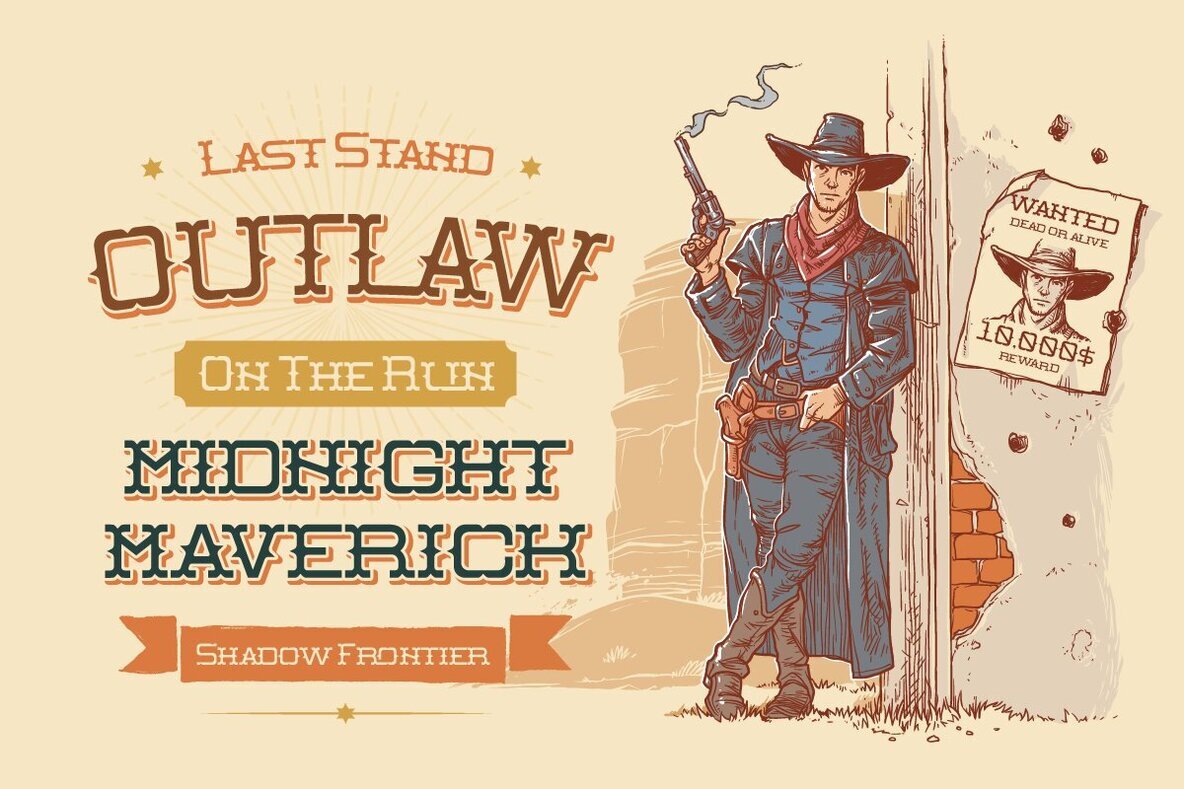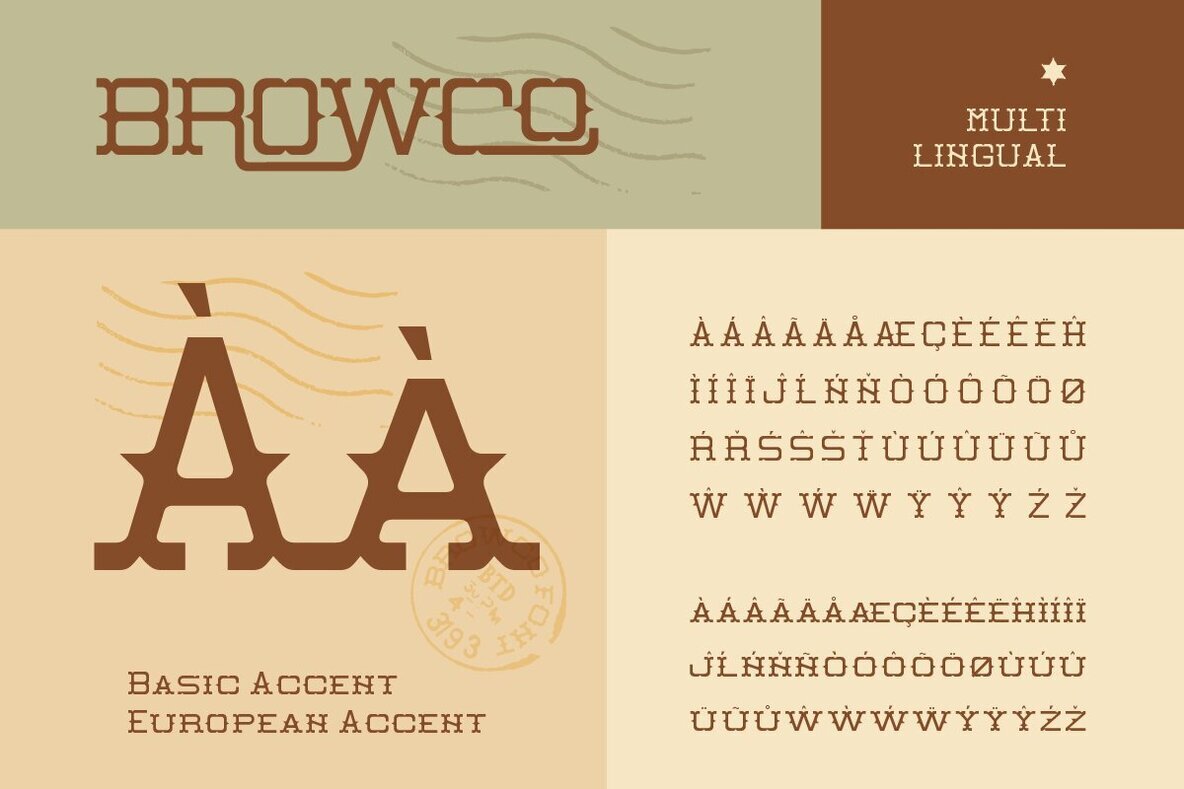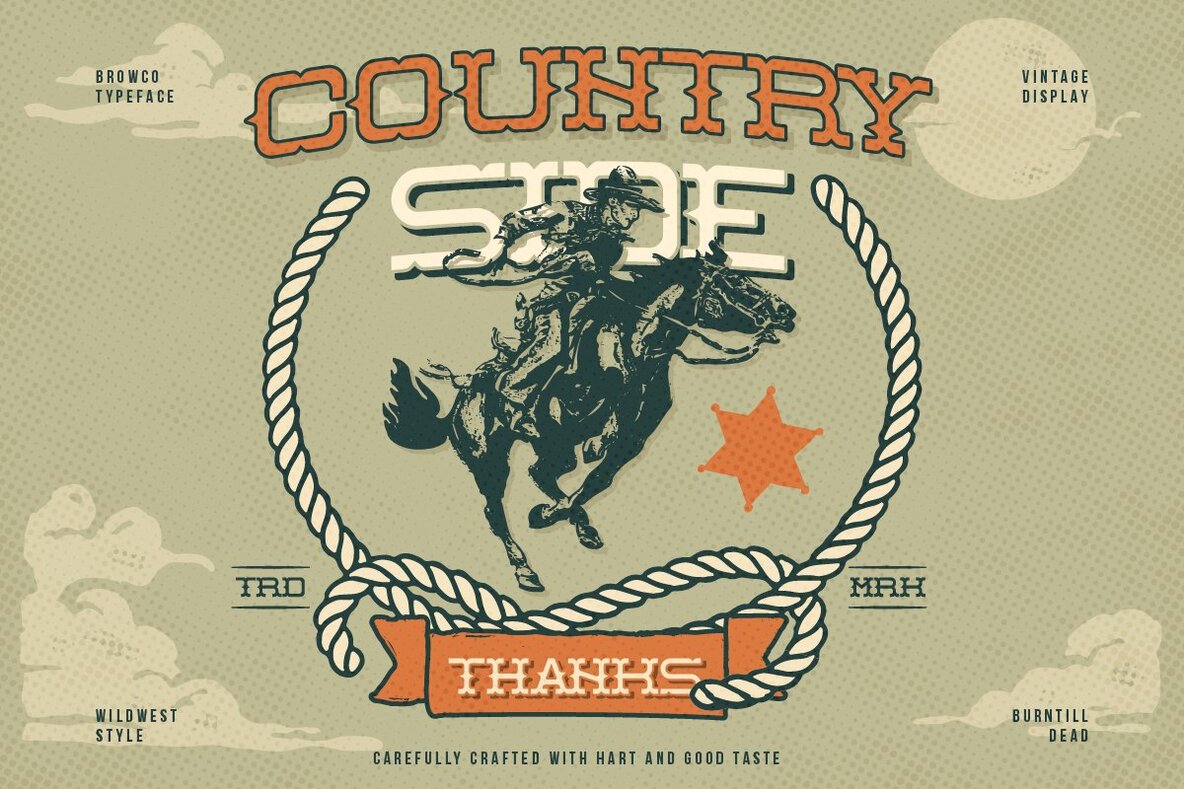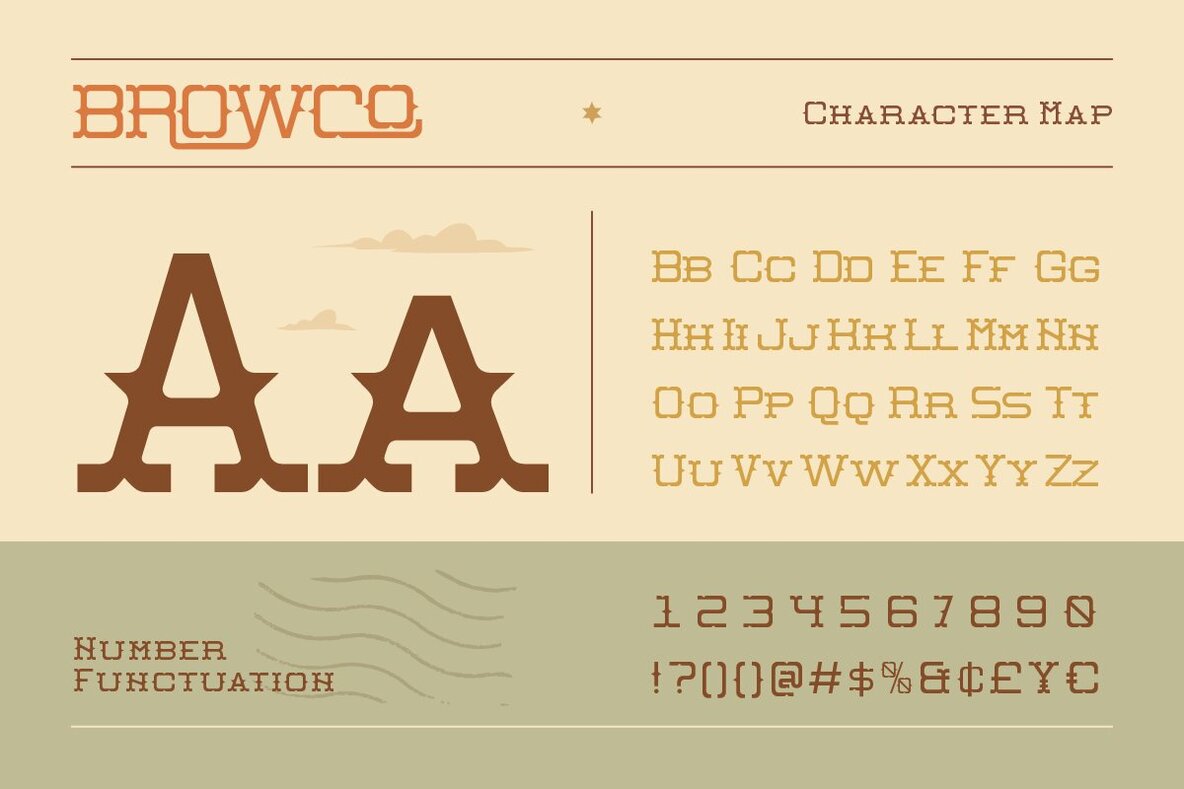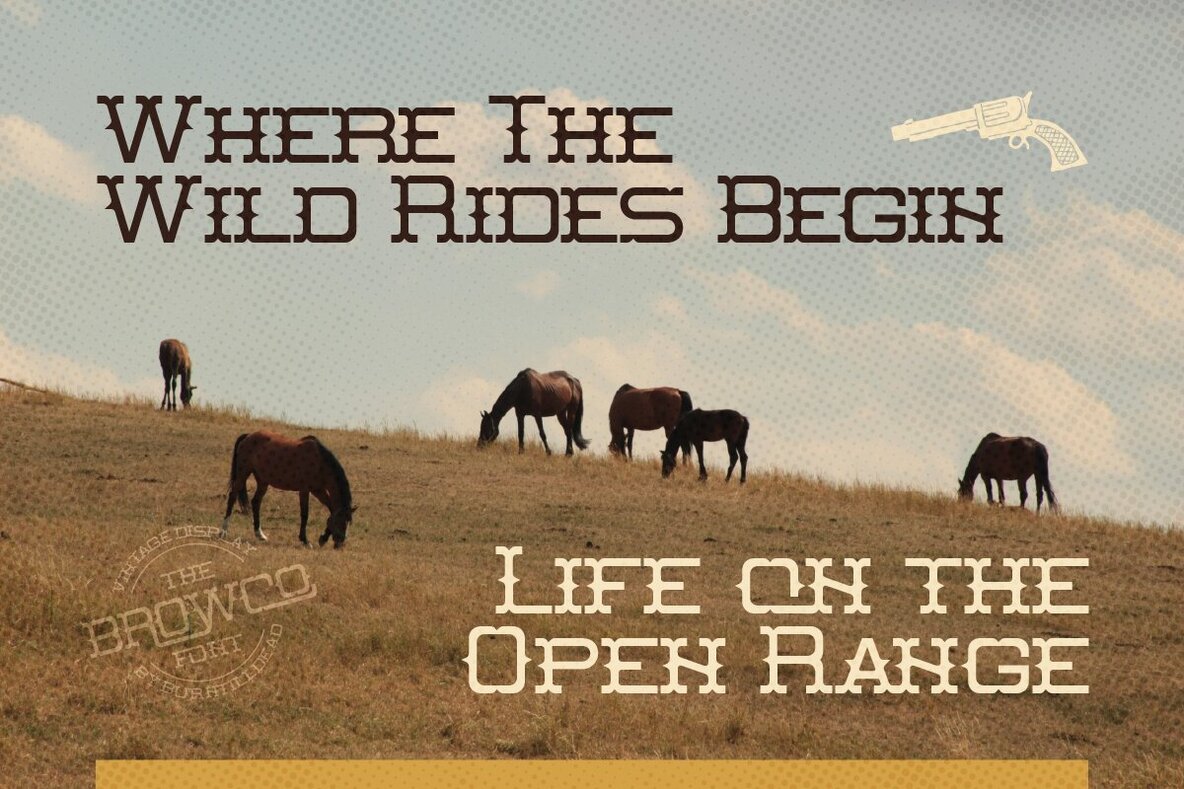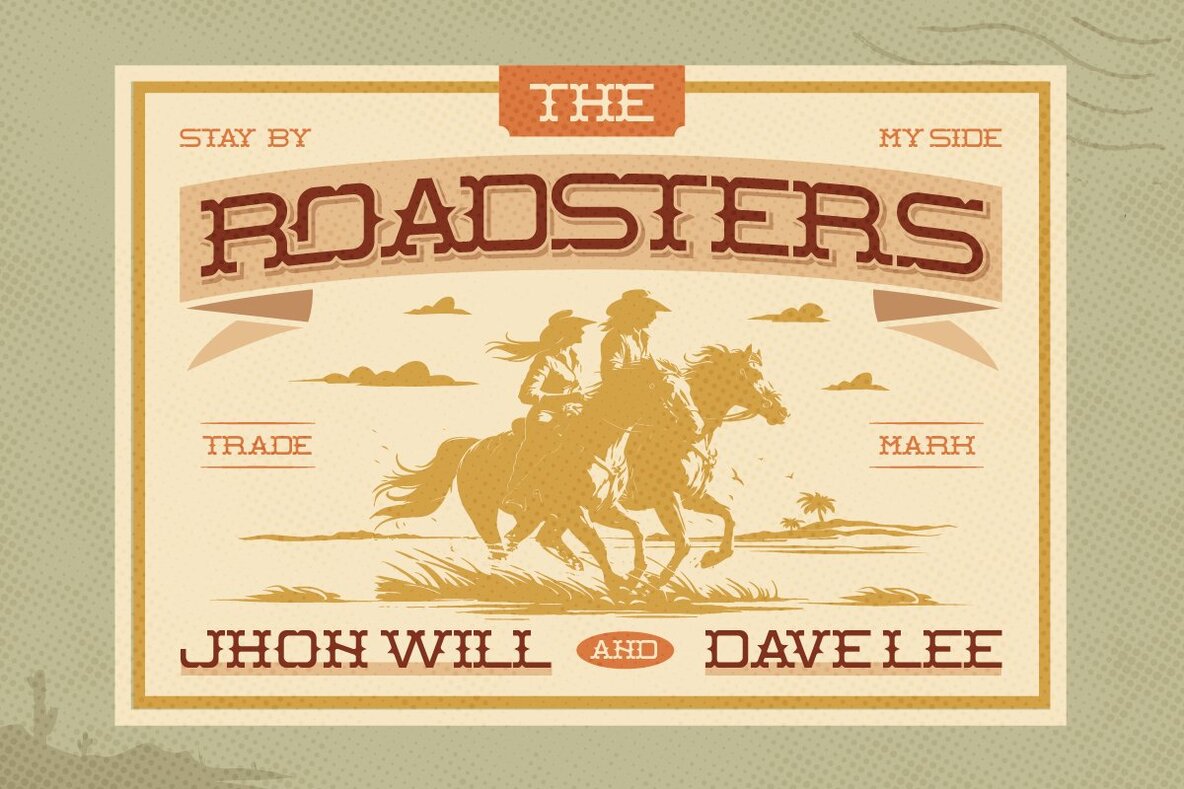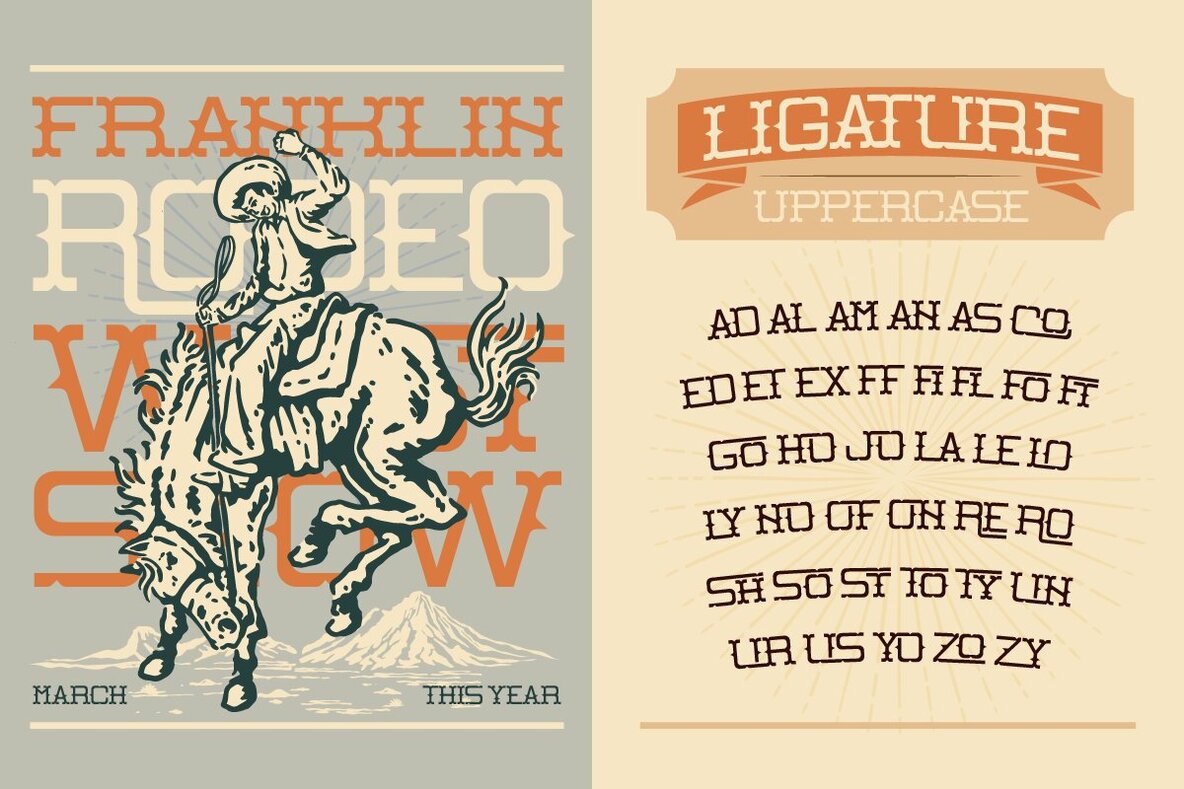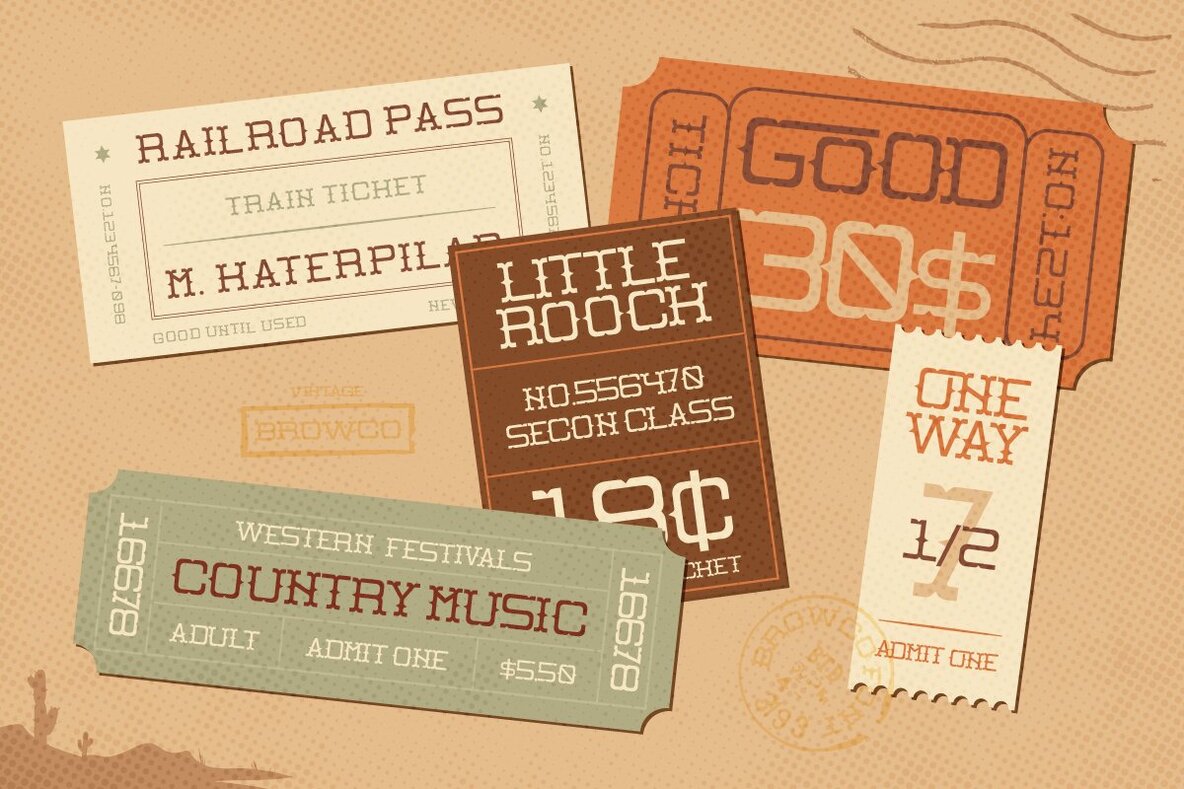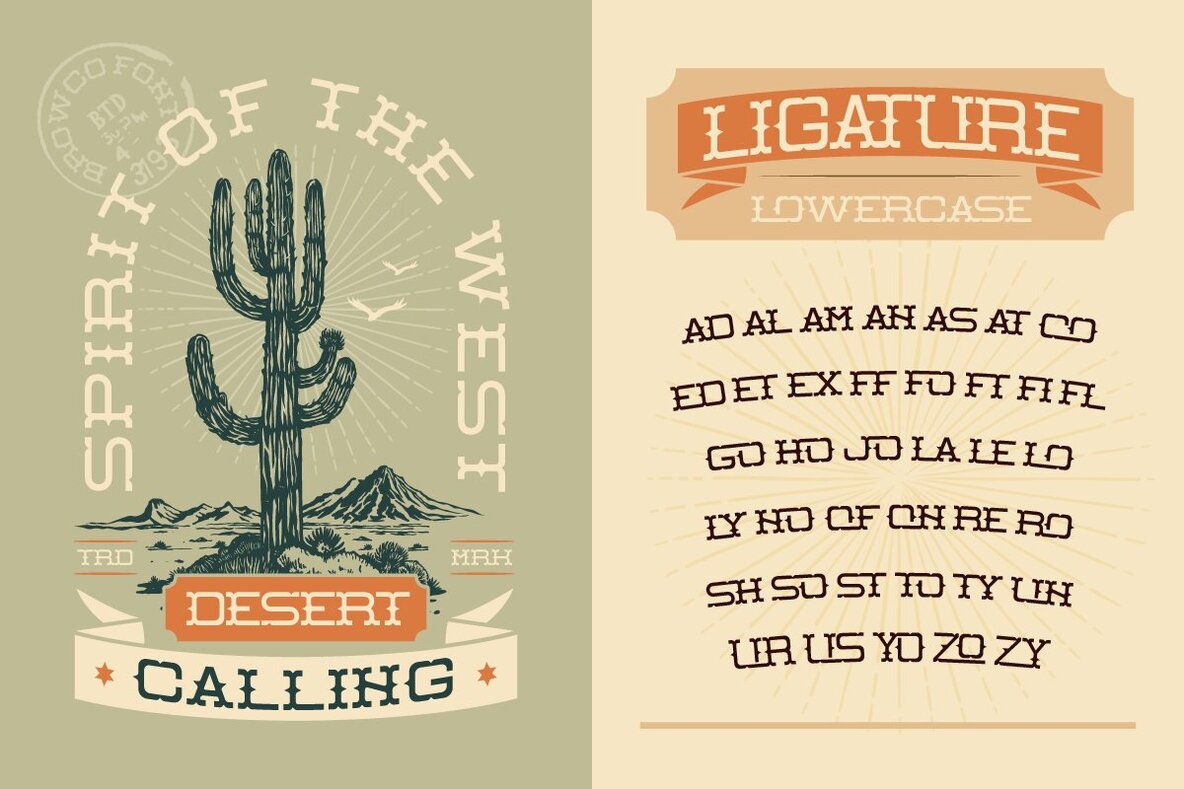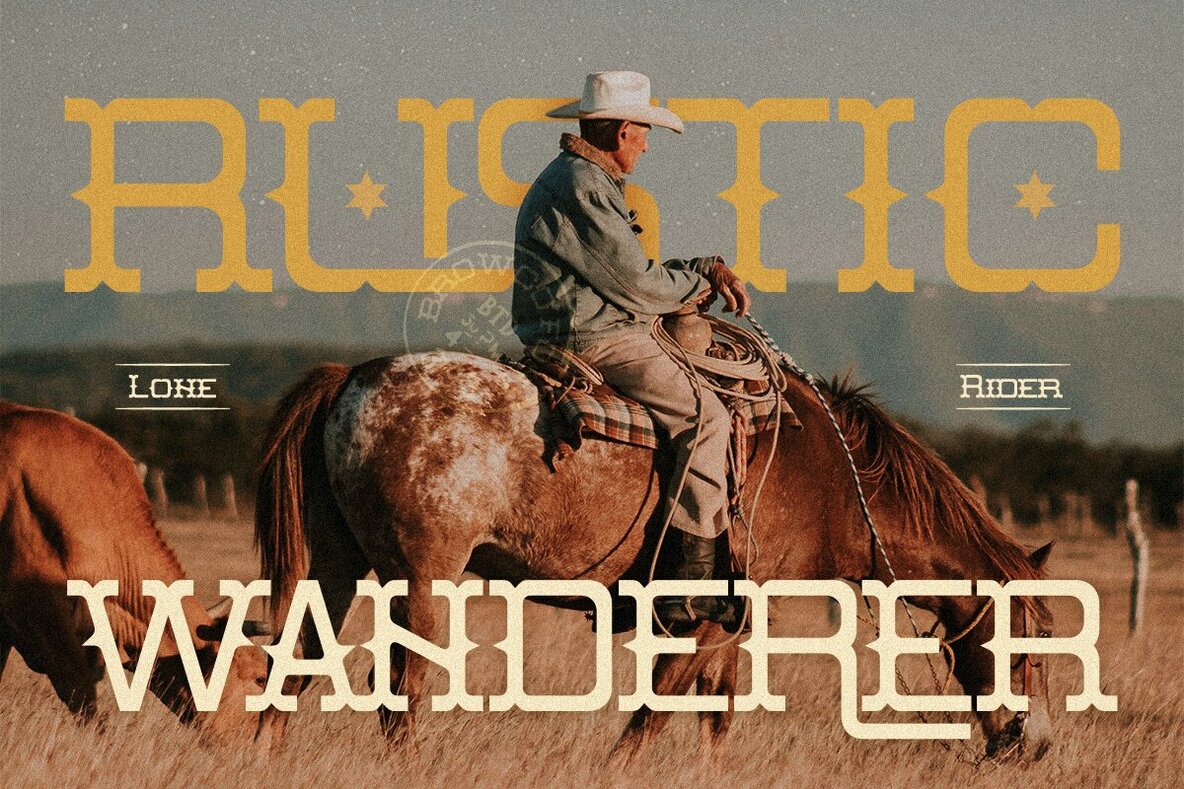
Browco Font
Browco
Introducing a distinctive typeface inspired by the American Wild West. This font features bold letters enhanced with sharp spikes, evoking a vintage and adventurous aesthetic. Ideal for designs that aim to capture nostalgia or an adventurous spirit, it excels in branding, posters, logos, and themed projects needing a touch of the Wild West flair.
The font includes a complete A-Z set in both uppercase and lowercase letters, as well as numbers and punctuation. It also offers ligatures for enhanced typographic creativity and supports multiple languages, making it a versatile choice for diverse design needs.